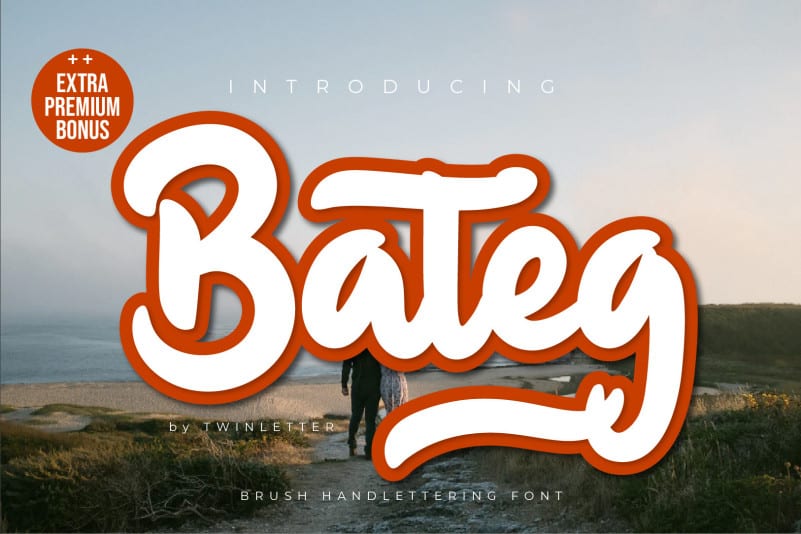
Bateg Script Font
Bateg Script Font is a beautiful and flowing handwritten font. It’s inspired by classic typography and brings its own unique style to any design project. Whether you’re looking for fonts for Instagram or calligraphy scripts for DIY projects, Renanty